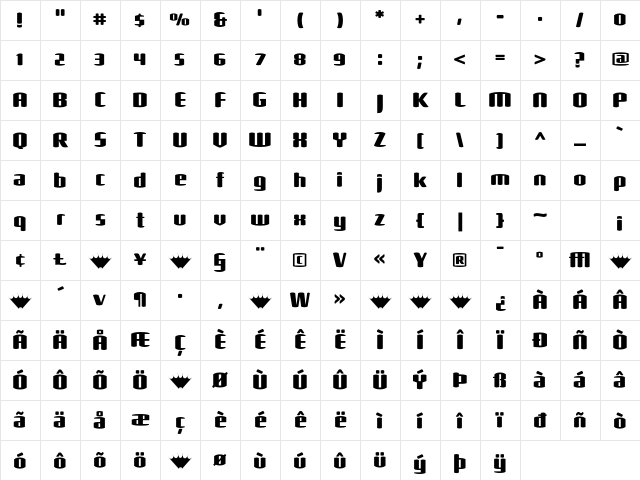
Complete Shimano RoundBlackNarrow glyph index. Displaying only characters natively supported by Shimano RoundBlackNarrow font.
Shimano softens its letterforms with rounded terminals, giving it an approachable, friendly quality that works well in consumer-facing and digital contexts.
Font Pairing: Pairs well with a rounded or humanist sans for body copy, maintaining the friendly tone without relying on Shimano to carry extended reading.
Pro Tip: Use Shimano for UI elements, app interfaces, and anywhere a friendly, approachable tone needs to be maintained without sacrificing clarity.